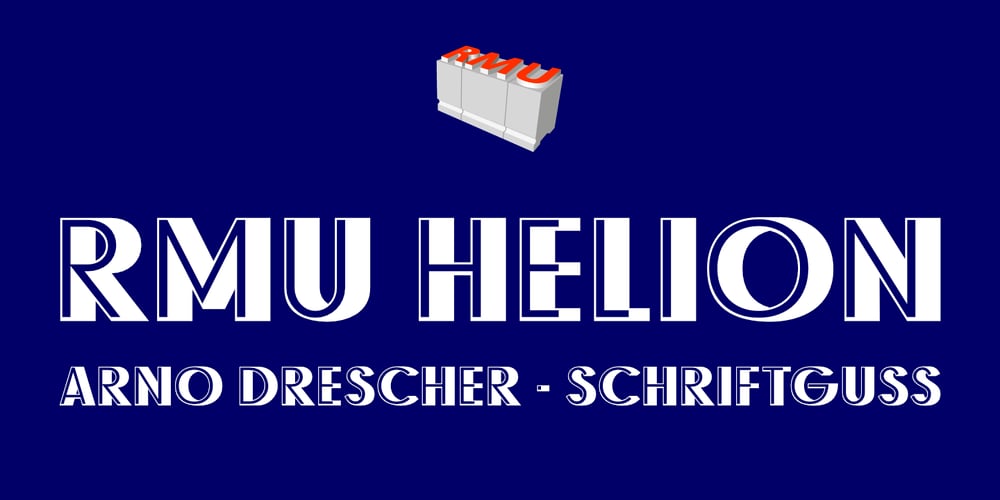
RMU Helion
RMU Helion font
RMU Helion Font Family was designed by Ralph M. Unger and published by RMU. RMU Helion contains 1 styles and family package options. In 1935 Schriftguss Dresden released Arno Drescher’s famous titling font Helion. This font was brought to life again and carefully extended with Baltic, Turkish and Central European character sets.